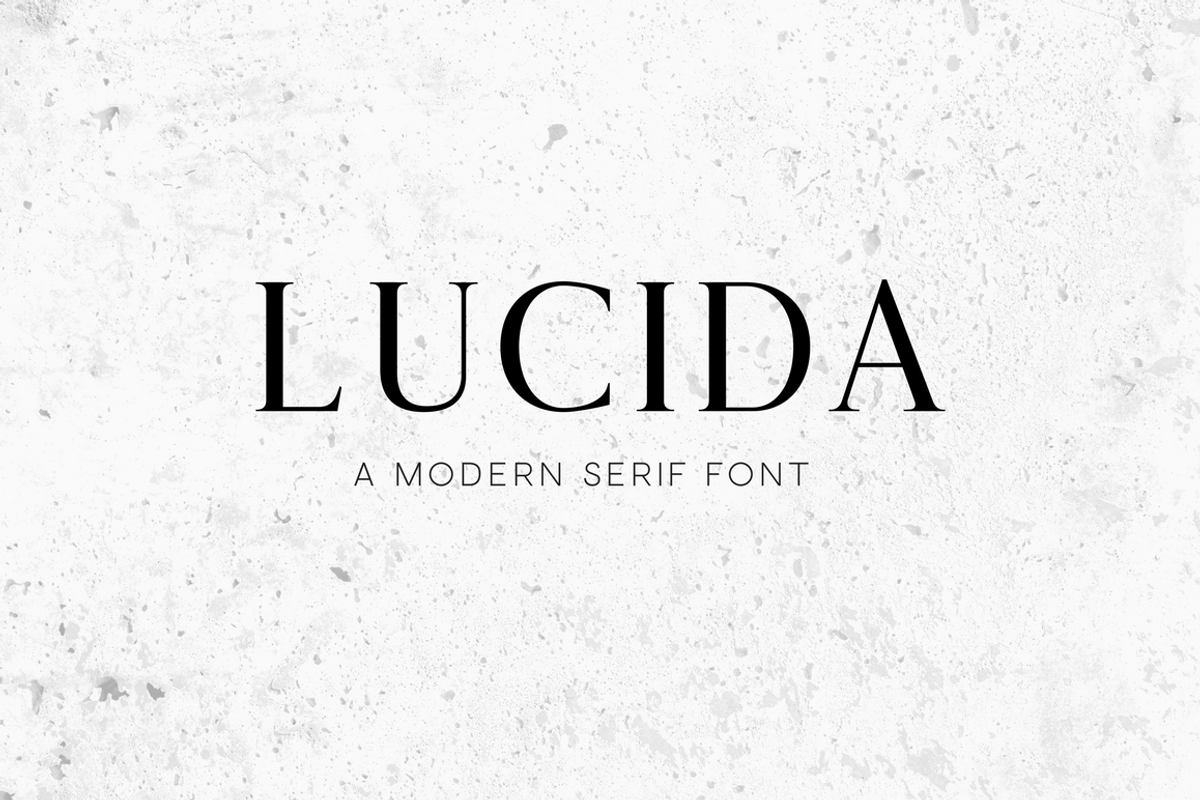
Lucida Modern Serif Font Free Download is a sophisticated and contemporary serif typeface that combines modern elements with traditional charm. With its high contrast, elegant serifs, and clean lines, Lucida is perfect for branding, editorial design, logos, advertisements, and websites that require a polished, professional look.
Lucida’s timeless yet modern design makes it versatile for both large headlines and body text, ensuring readability without compromising on style. Whether you're working on a luxury brand, a high-end product, or an editorial project, Lucida adds refinement and clarity to your designs.